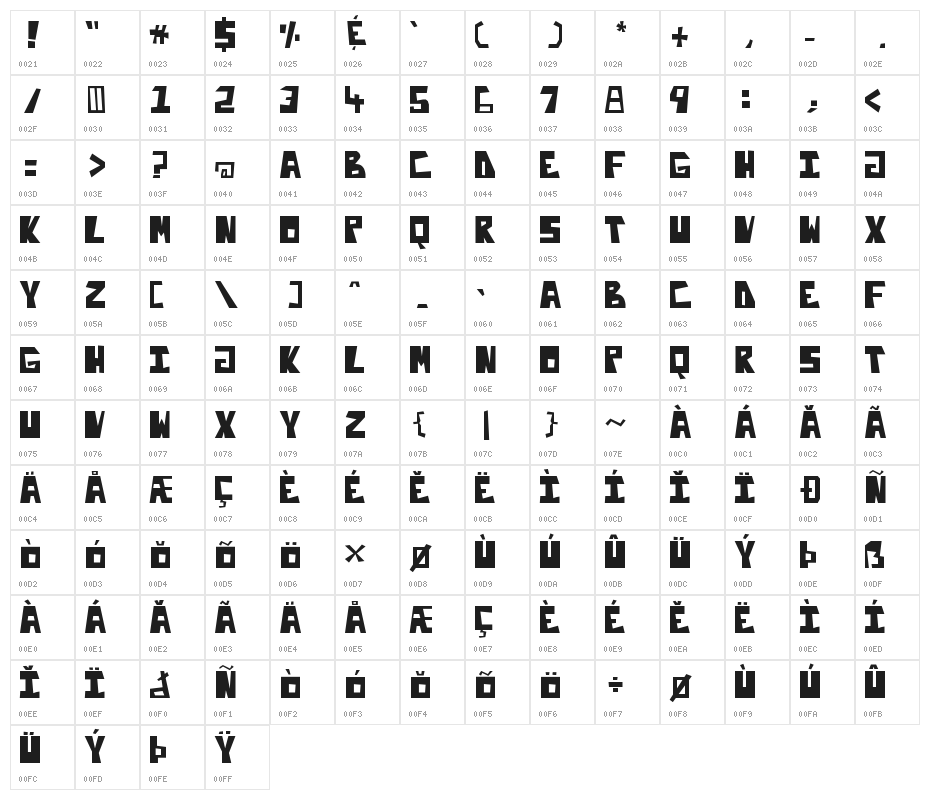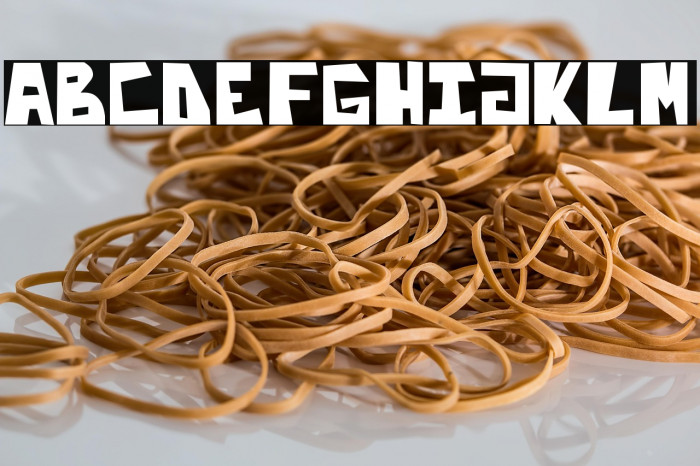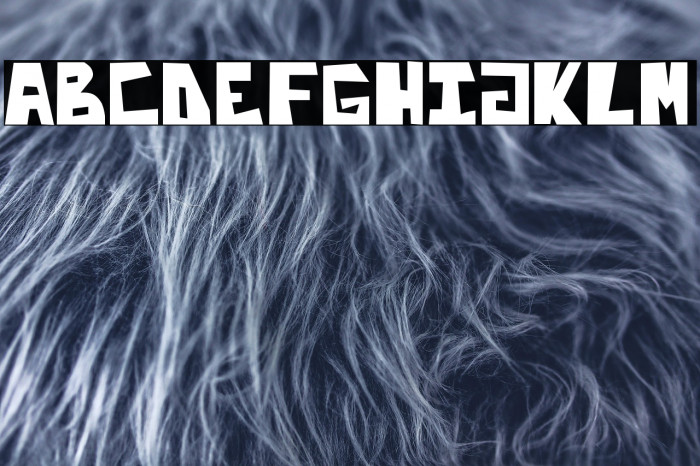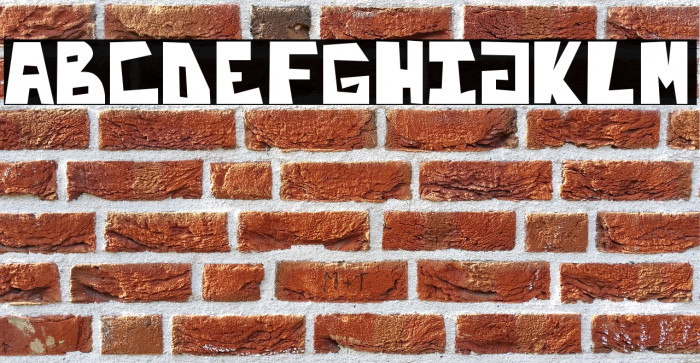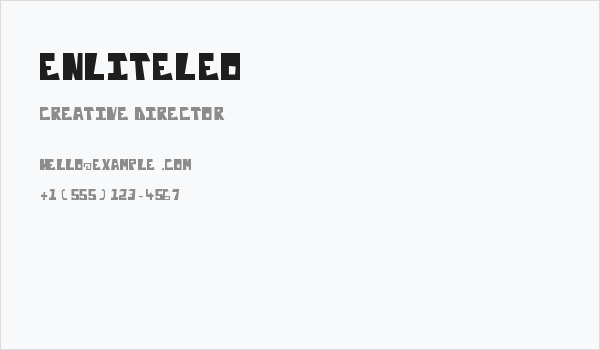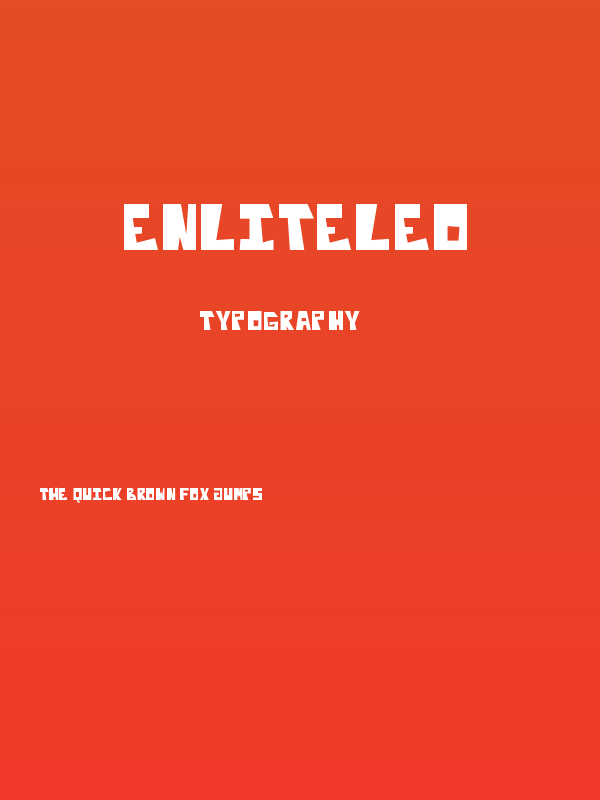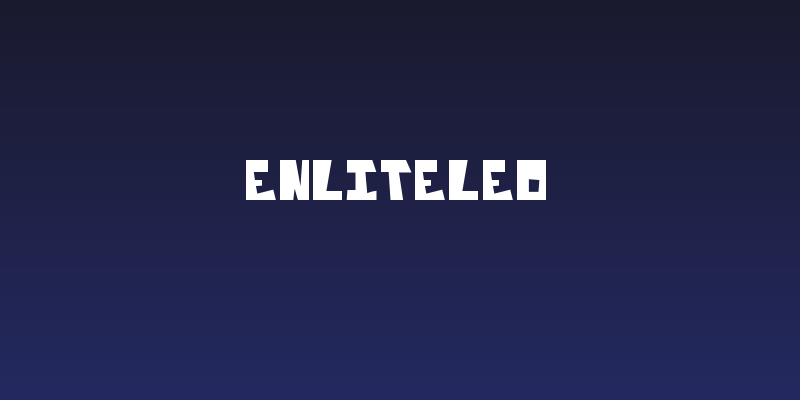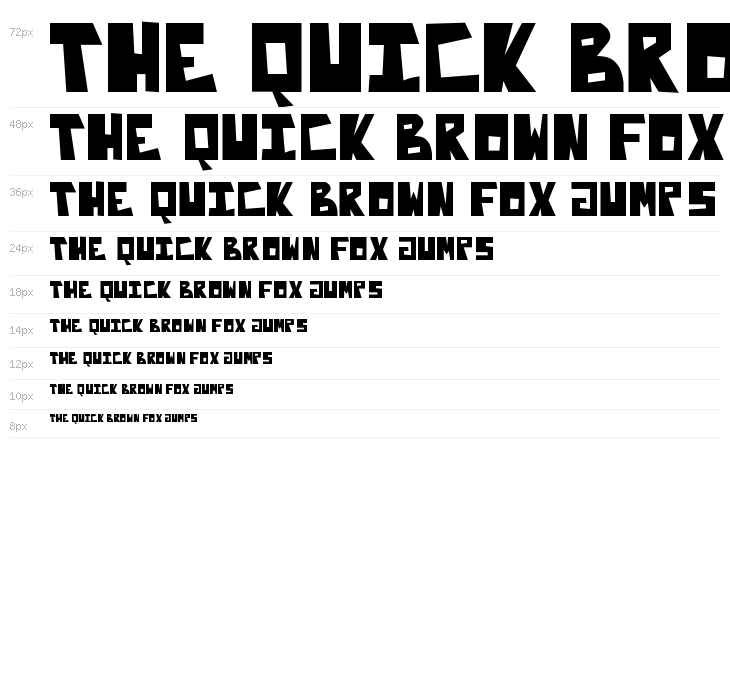
Enliteleo Font
Enliteleo Description
This font features a bold and geometric style with sharp angles and a blocky appearance. The uppercase letters are distinct with a modern and edgy design, while the lowercase letters maintain a consistent style. Numbers and special characters follow the same bold and angular theme, making the font suitable for attention-grabbing designs. The overall look is dynamic and impactful, ideal for projects that require a strong visual presence.
| Proposed Projects | Ideal for posters, logos, video game graphics, and urban-themed designs. |